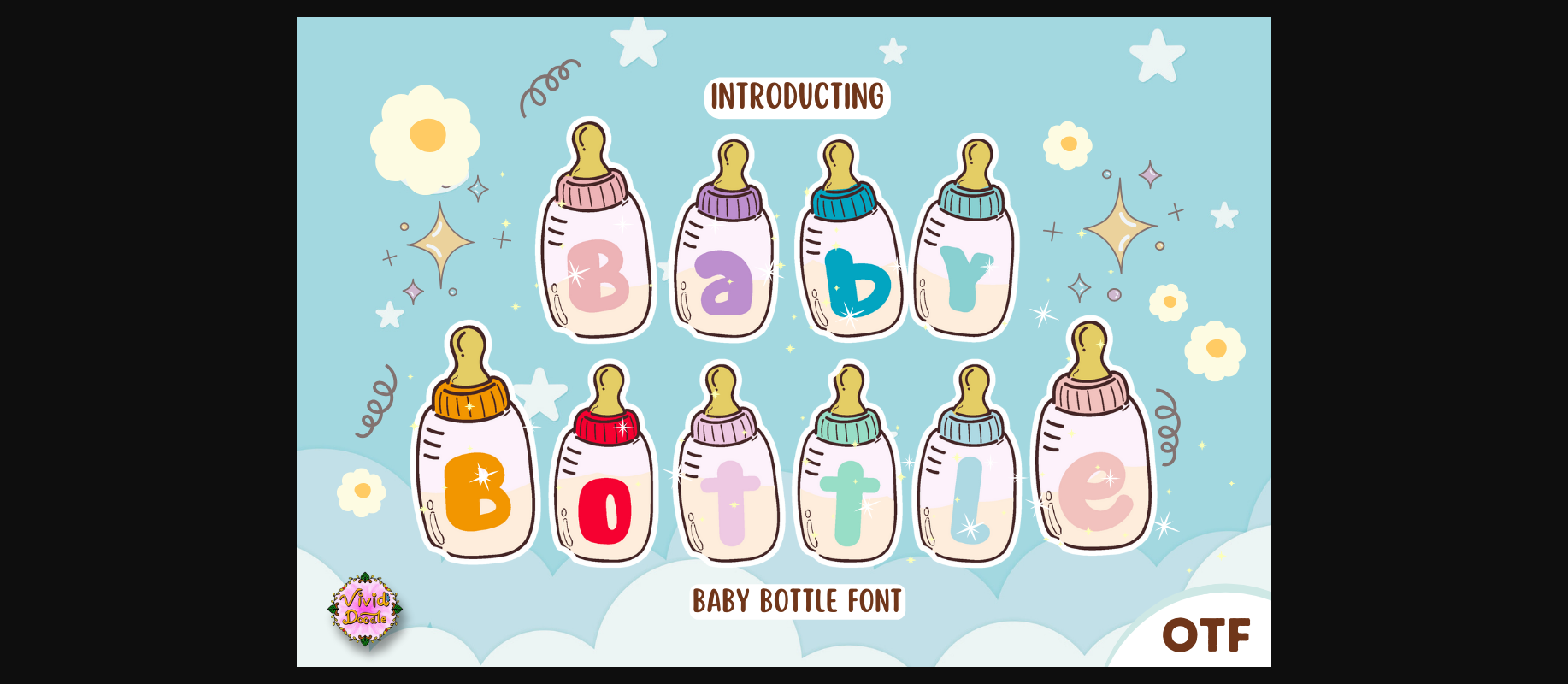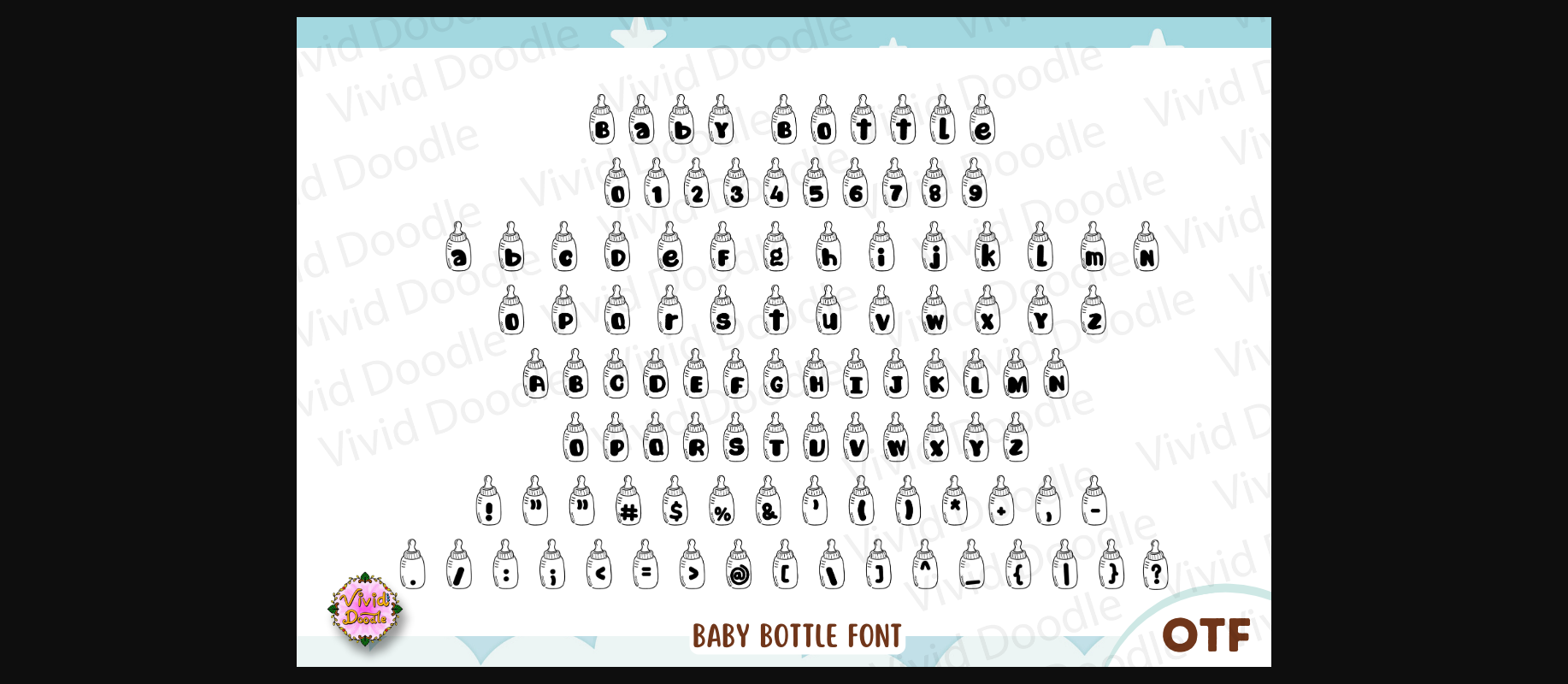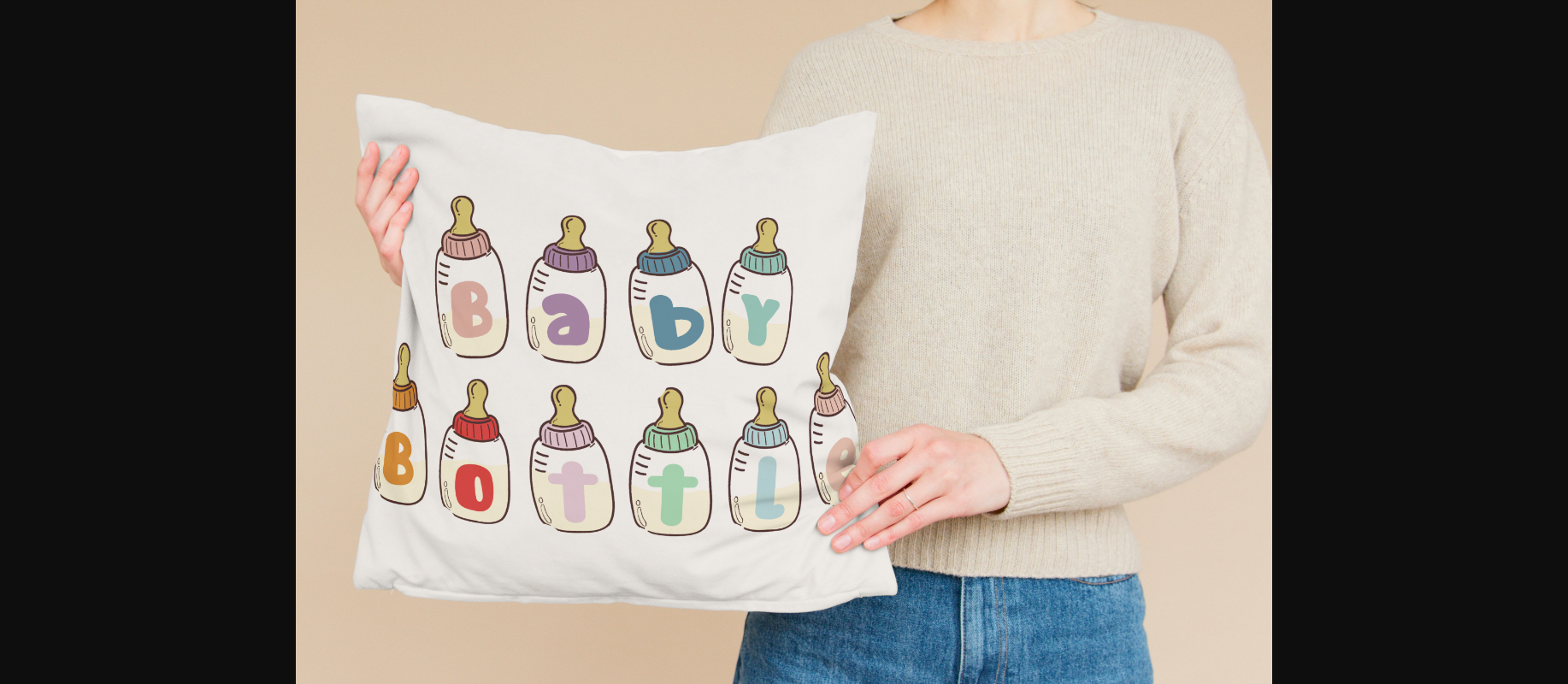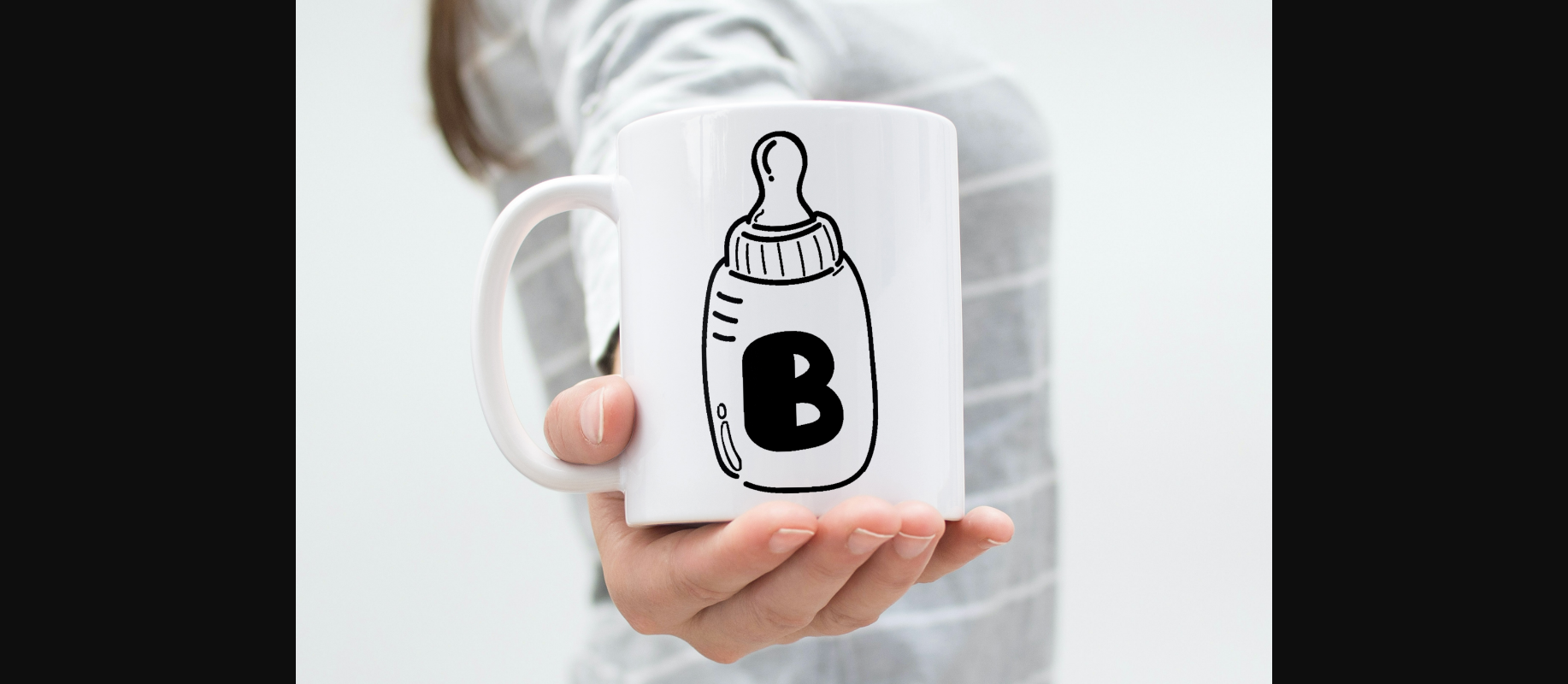
Baby Bottle Font
About Baby Bottle Font
Introducing Baby Bottle Font—a charming and playful typeface perfect for baby-related designs, kids’ projects, school materials, nurseries, and various other creative endeavors. This font captures the adorable essence of baby bottles, adding a sweet and whimsical touch to your designs. Whether for baby shower invitations, nursery decor, or any project related to little ones, Baby Bottle Font seamlessly blends a cute aesthetic with a touch of childhood charm. Elevate your designs with the endearing allure of Baby Bottle Font, turning every project into a visually engaging and creatively inspired experience.